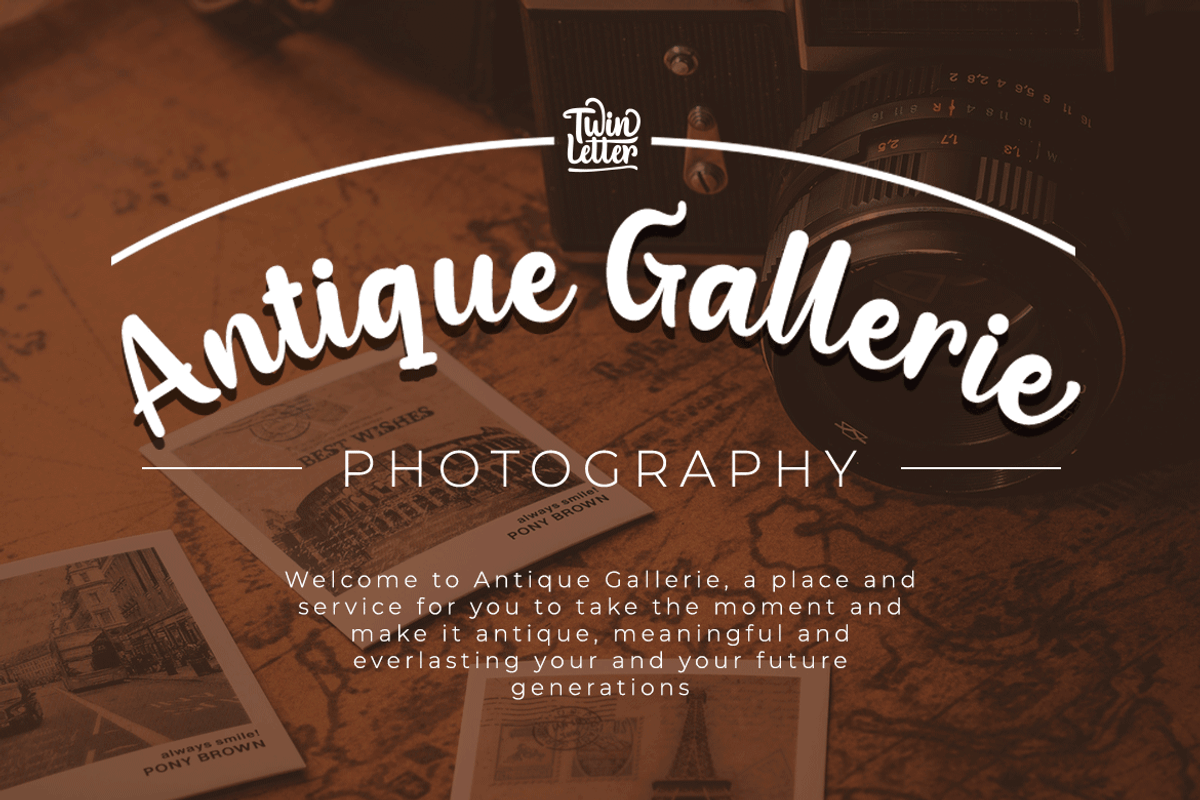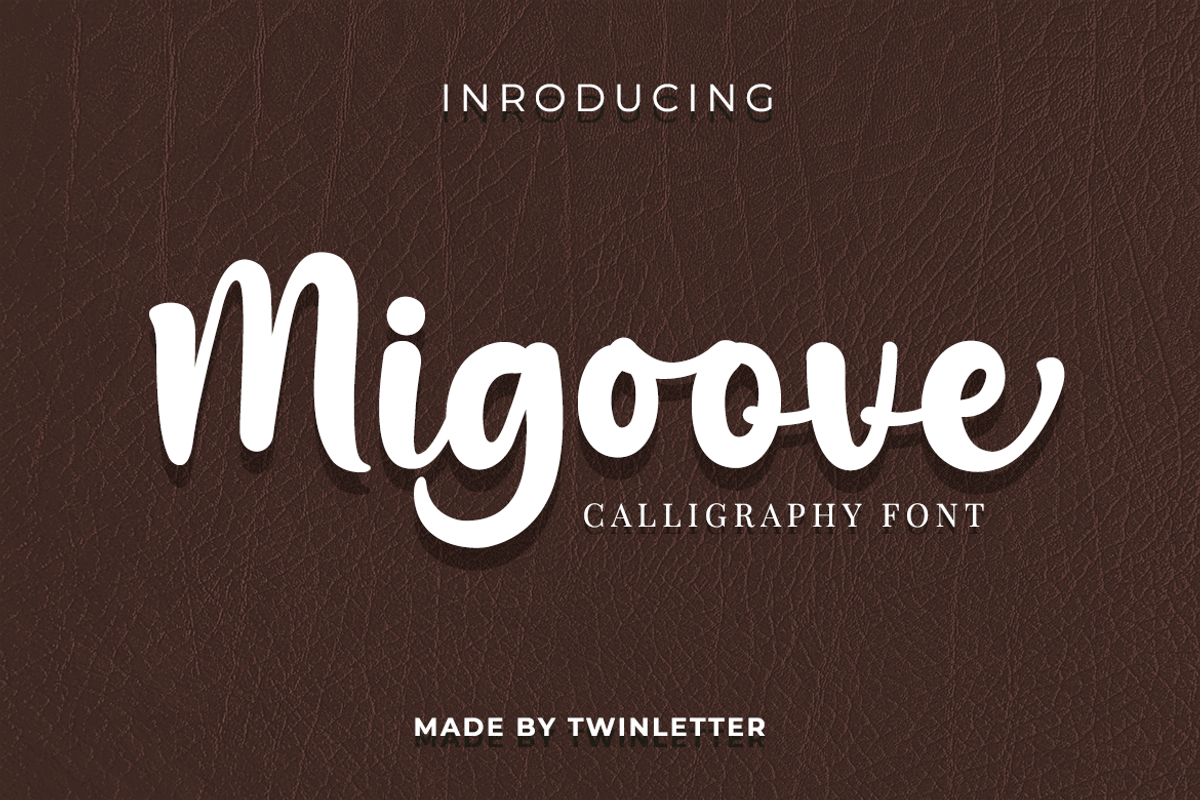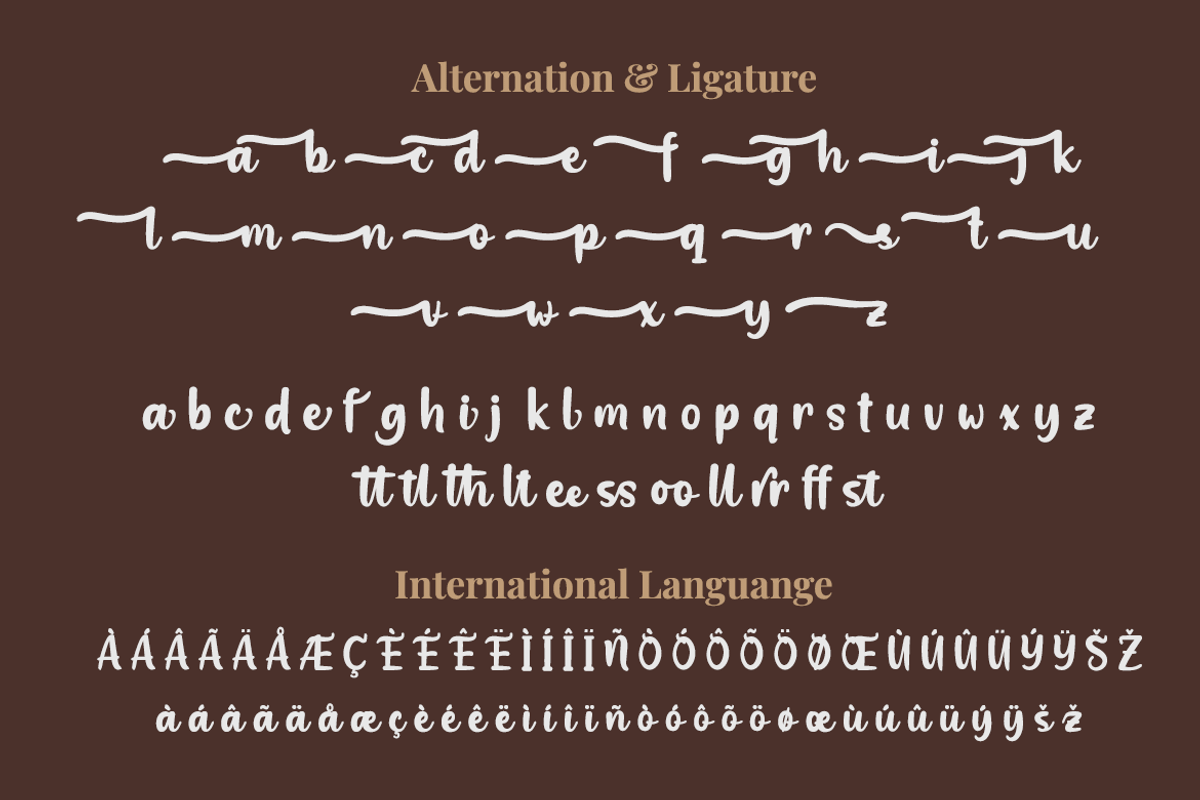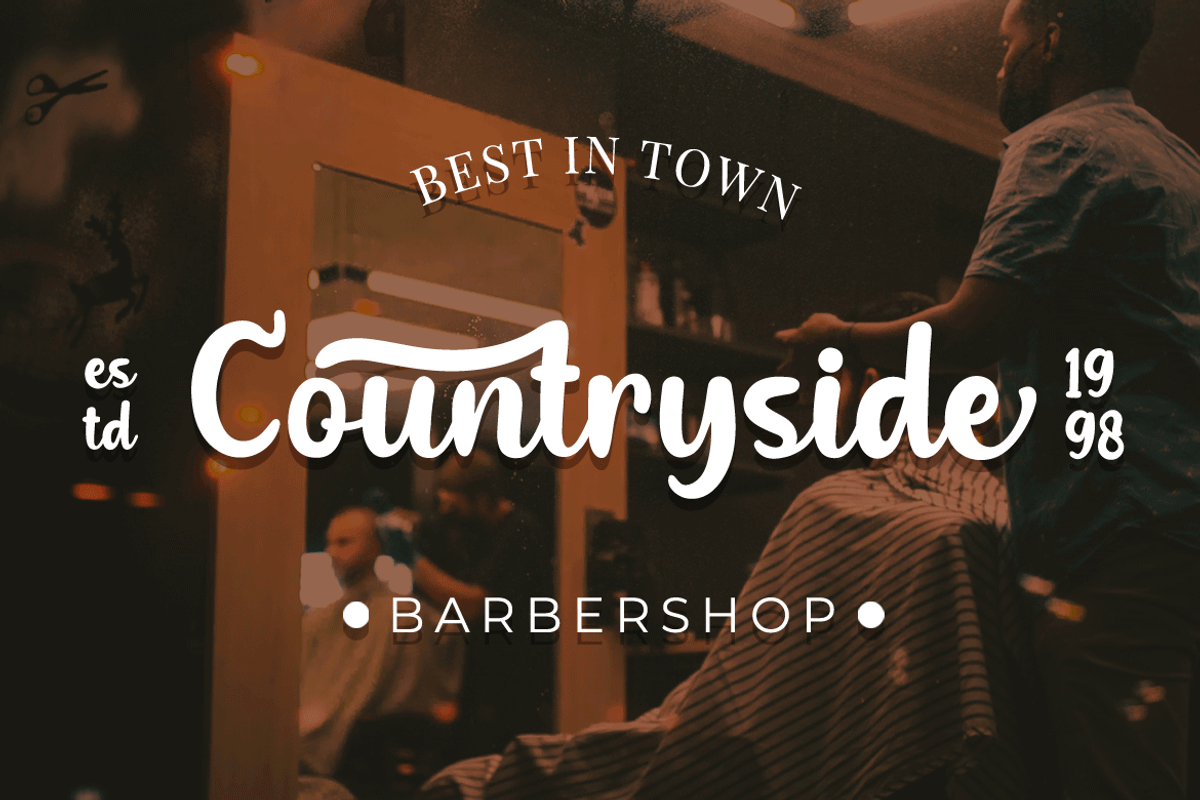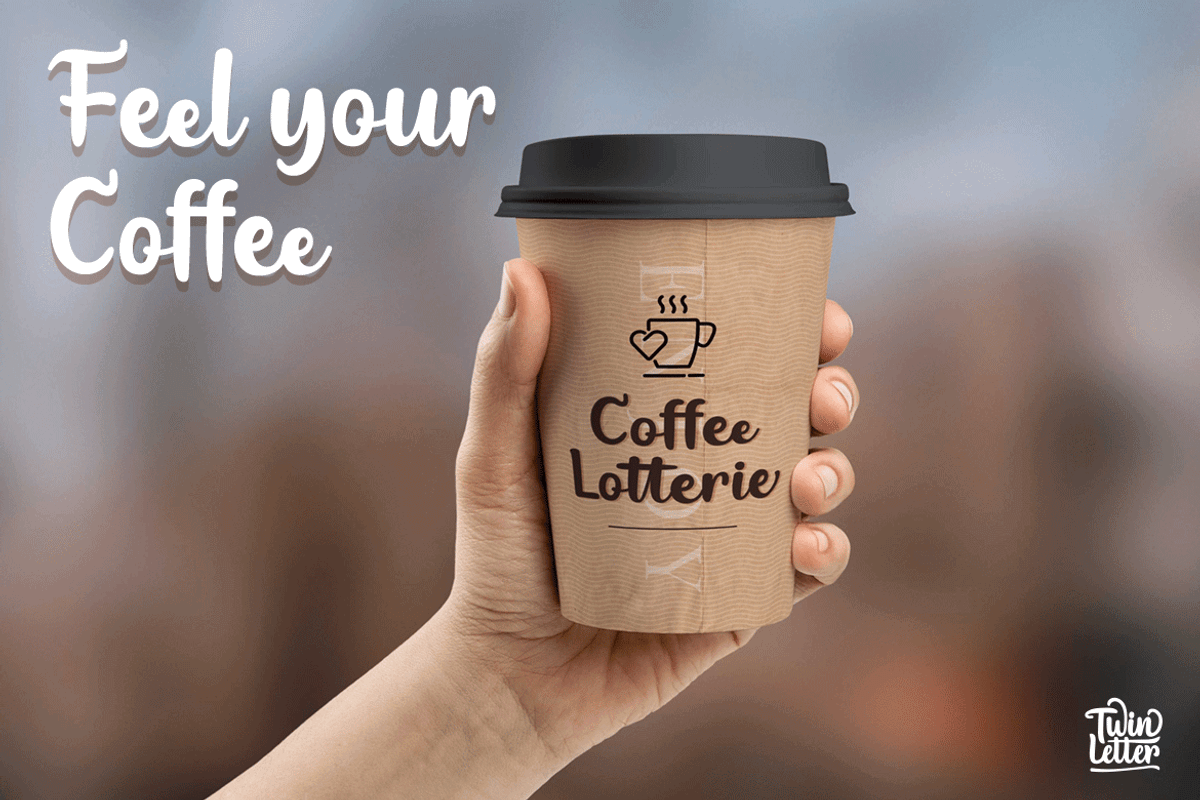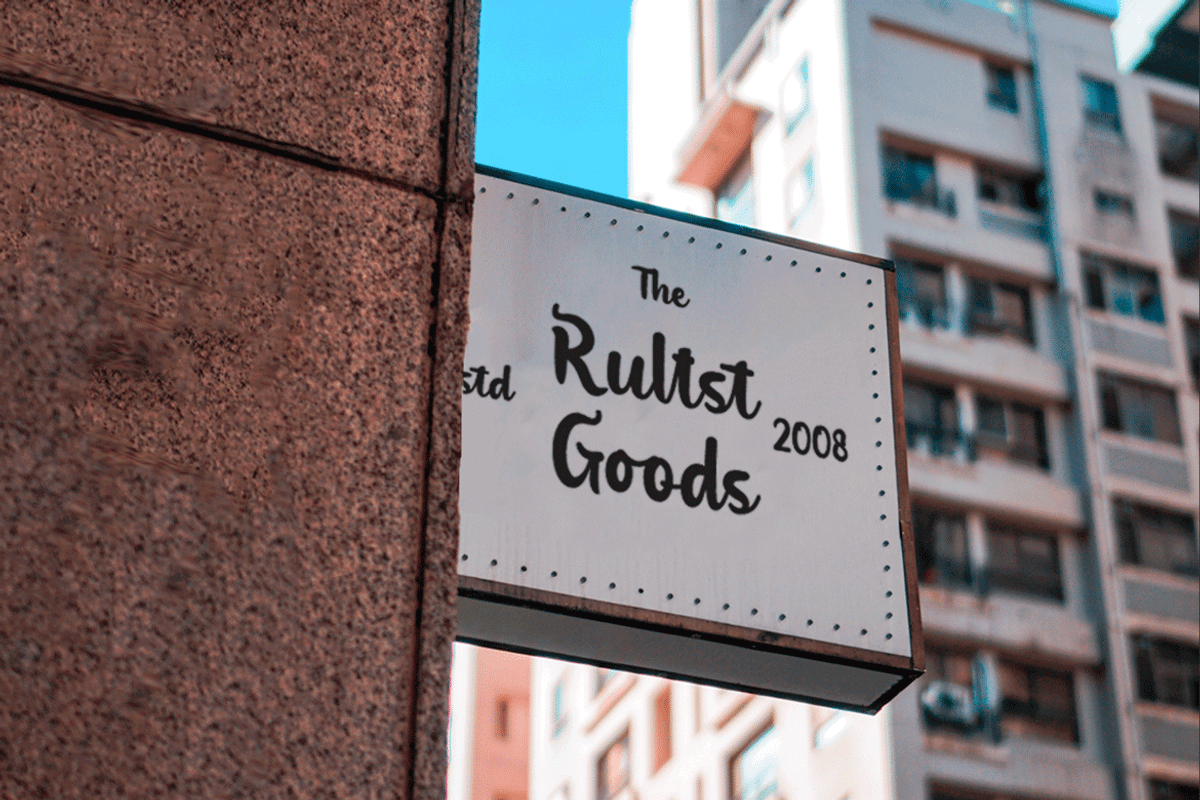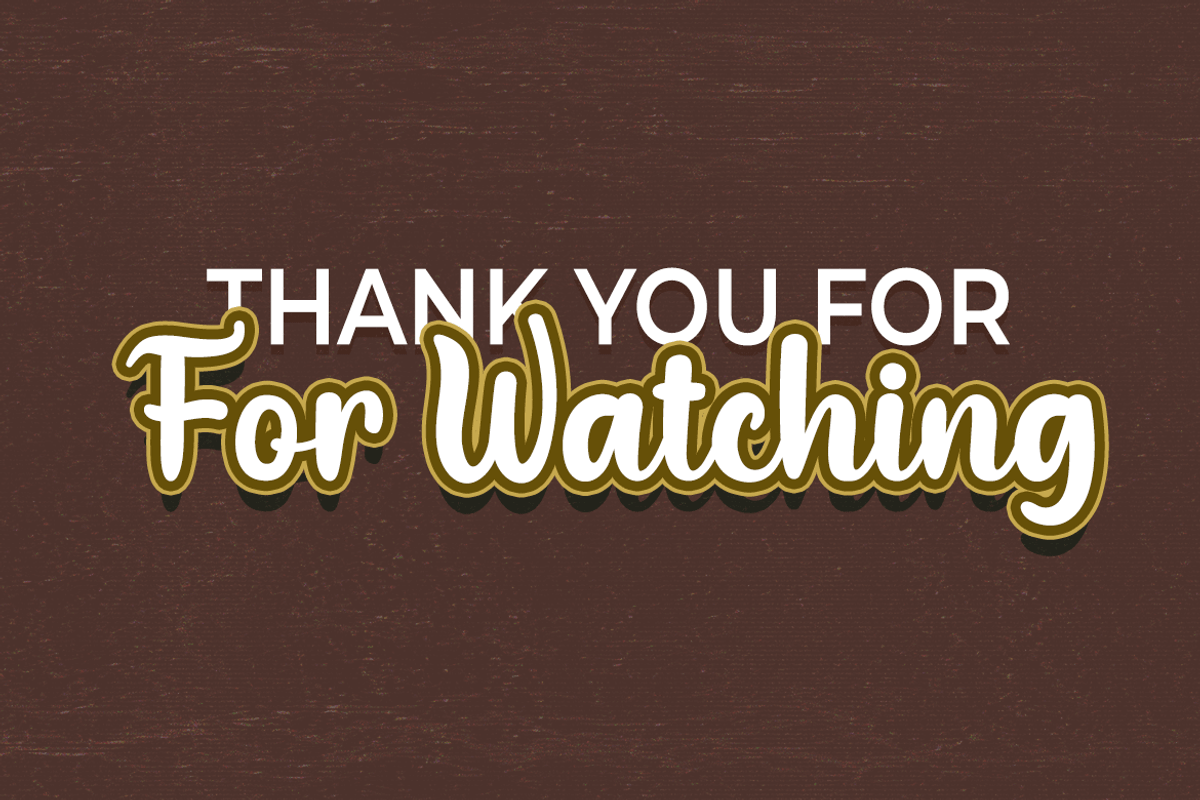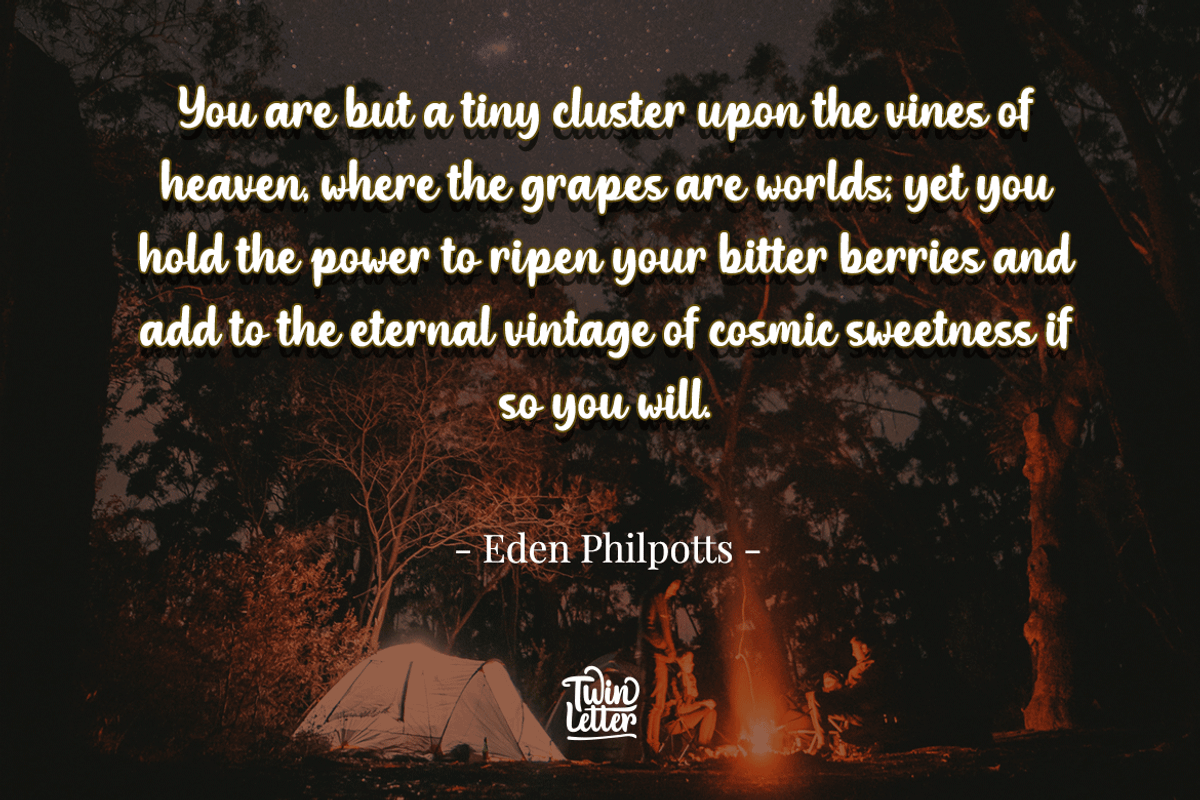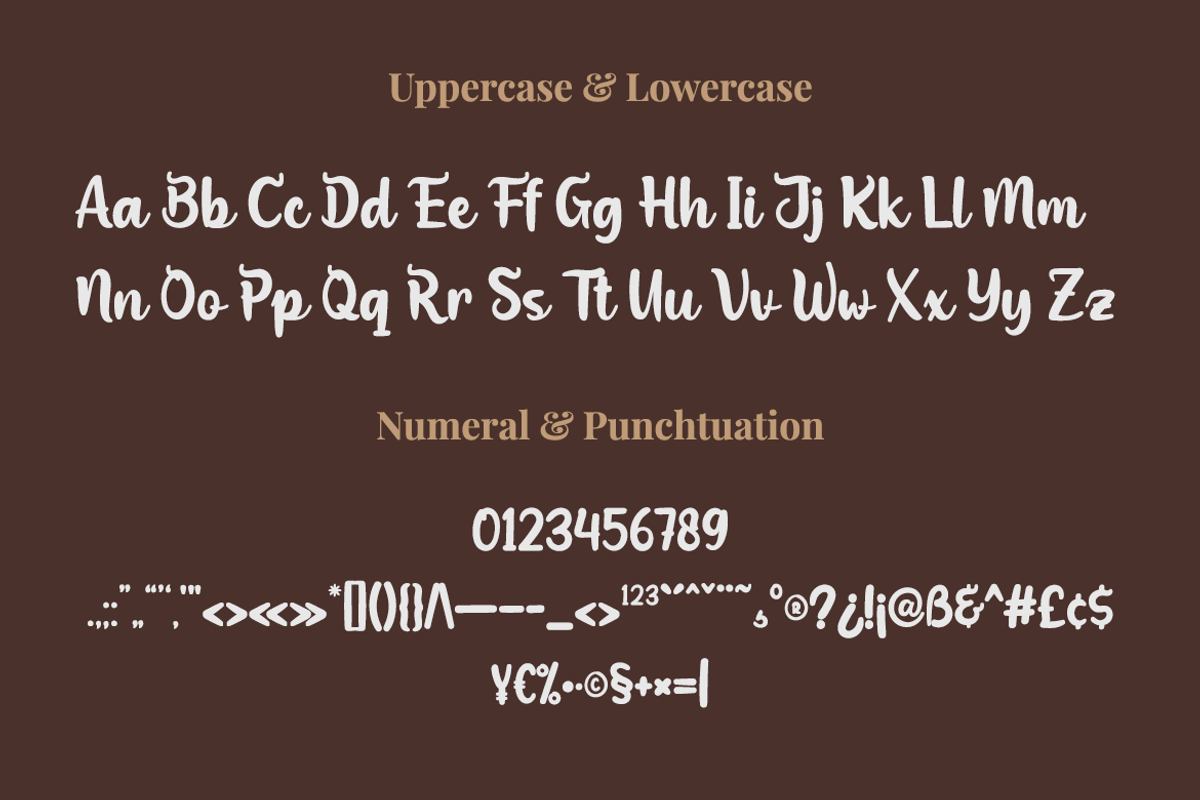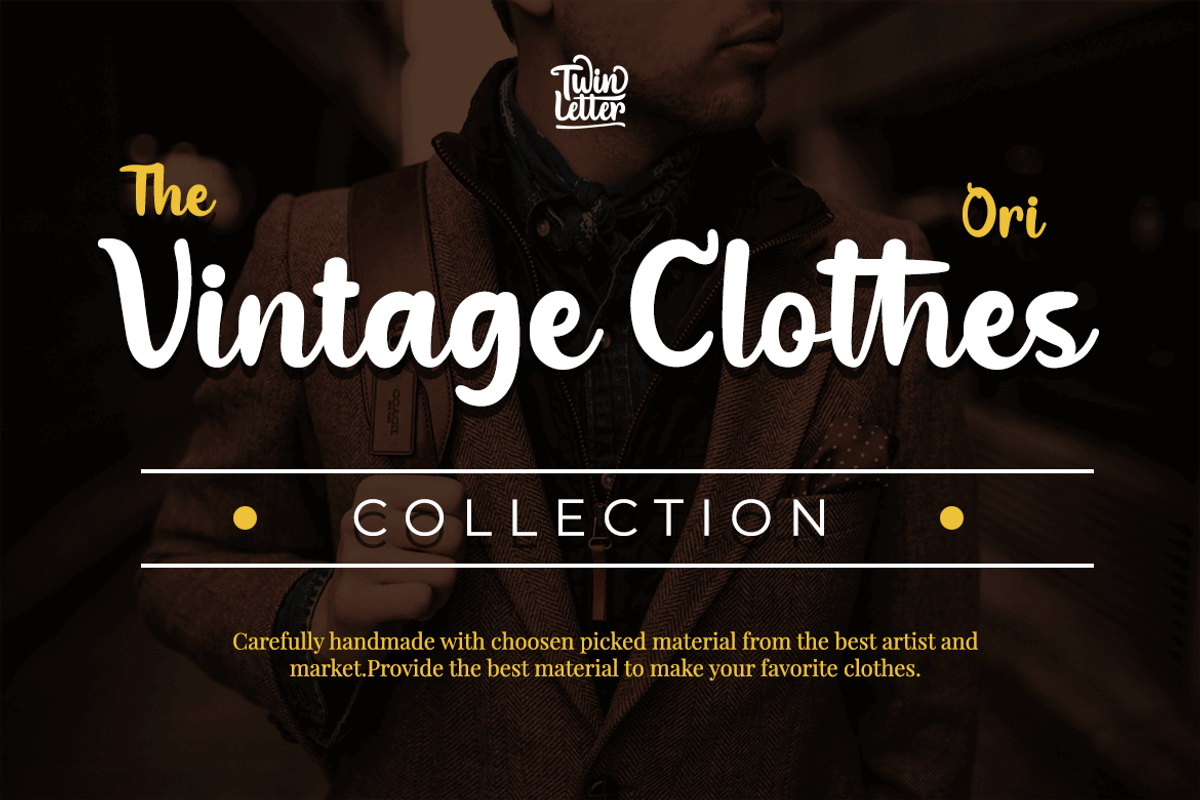
Migoove
Migoove is a script font that is attractive and has powerful characteristics in every letter. You will find it easy in your work since this font will beautify your every project. There are many different options in this font, making it simpler for you to create a blend for your creative requirements. Let’s get started using this typeface to complete the job.
Not only that, but this font has a genuine handwritten feel to it, which has been developed to create a portion and composition that matches your demands. As a result, this typeface is appropriate for craft projects, children’s writing, adventure posters, food banner titles, wedding invitations, product packaging logos, quotations, social networking page covers, and furniture banners, headlines, book covers, and much more.